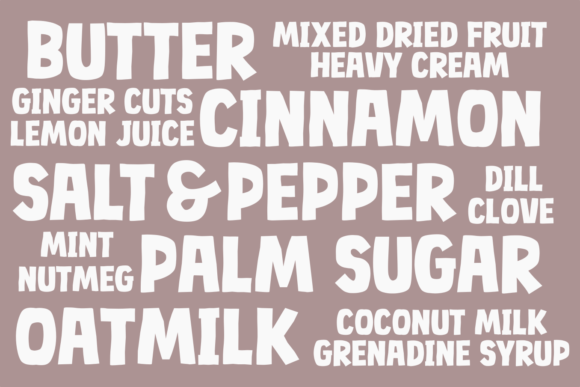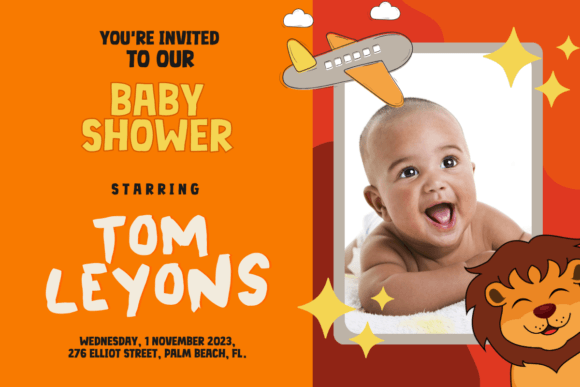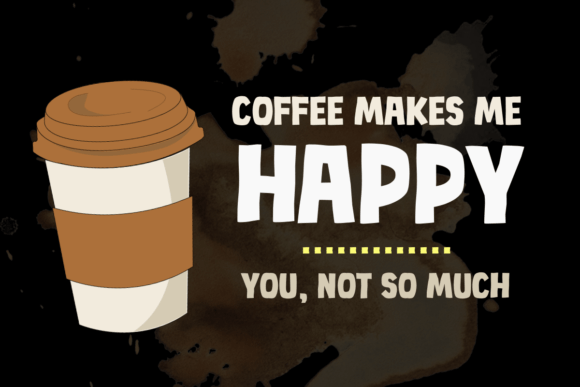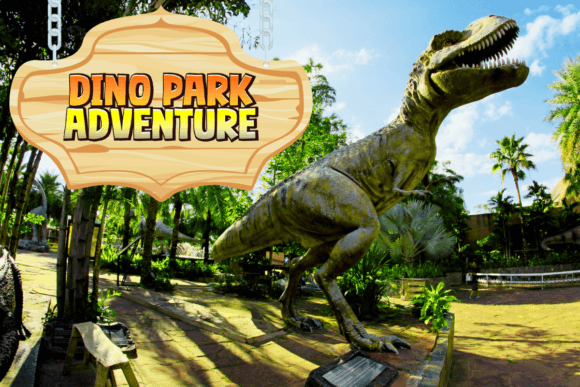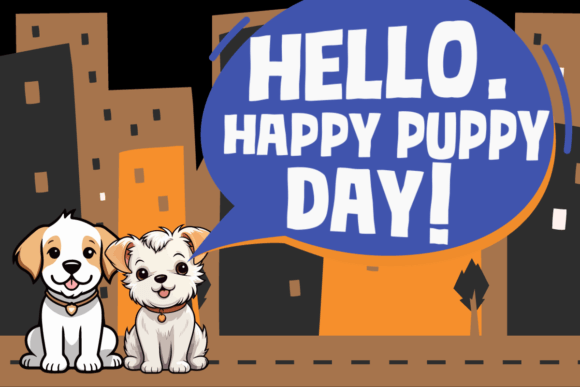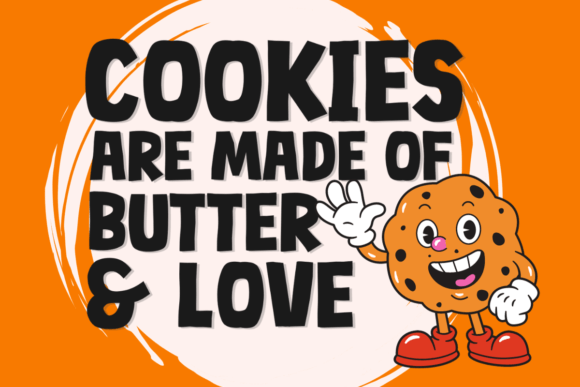
Coffee Butter Font: The Perfect Addition to Your Retro-Themed Projects
Are you a designer or crafter looking for a unique and eye-catching font to add to your retro-themed projects? Look no further than the Coffee Butter Font! This simple, bold, and quirky display font is perfect for a variety of applications, from banners and social media posts to invitations, cards, and more.
What is Coffee Butter Font?
Coffee Butter Font is a display font that is characterized by its bold and quirky design. The font features a unique blend of simplicity and playfulness, making it perfect for adding a touch of personality to your projects. The font’s design is reminiscent of retro-themed decor, with a dash of modern flair.
Key Features of Coffee Butter Font
- Simple and Bold Design: The Coffee Butter Font features a simple yet bold design that is sure to grab attention.
- Quirky and Playful: The font’s quirky and playful design makes it perfect for adding a touch of personality to your projects.
- Retro-Themed: The font’s retro-themed design makes it perfect for use in vintage-inspired projects.
- Versatile: The Coffee Butter Font can be used in a variety of applications, from banners and social media posts to invitations, cards, and more.
Uses for Coffee Butter Font
The Coffee Butter Font is a versatile font that can be used in a variety of applications. Here are a few ideas to get you started:
- Retro-Themed Banners: Use the Coffee Butter Font to create eye-catching banners for your retro-themed parties or events.
- Social Media Posts: Add a touch of personality to your social media posts with the Coffee Butter Font.
- Invitations and Cards: Use the font to create unique and eye-catching invitations and cards for special occasions.
- Crafting Projects: The Coffee Butter Font is perfect for use in a variety of crafting projects, from scrapbooking to DIY decor.
Why Choose Coffee Butter Font?
There are many fonts to choose from, but the Coffee Butter Font stands out from the rest. Here are a few reasons why:
- Unique Design: The Coffee Butter Font features a unique design that is sure to grab attention.
- Easy to Read: Despite its bold and quirky design, the font is easy to read, even in large and small sizes.
- Versatile: The font can be used in a variety of applications, making it a great addition to any designer’s or crafter’s toolkit.
Tips for Using Coffee Butter Font
Here are a few tips for using the Coffee Butter Font in your projects:
- Use it as a Statement Font: The Coffee Butter Font is perfect for use as a statement font in your projects. Use it to draw attention to important information or to add a touch of personality to your design.
- Pair it with Other Fonts: The Coffee Butter Font pairs well with a variety of other fonts. Try pairing it with a simple sans-serif font for a bold and modern look.
- Experiment with Colors: The Coffee Butter Font looks great in a variety of colors. Experiment with different colors to find the perfect look for your project.
The Coffee Butter Font is a unique and eye-catching font that is perfect for adding a touch of personality to your retro-themed projects. With its bold and quirky design, this font is sure to grab attention and add a dash of modern flair to your designs. Whether you’re a designer or crafter, the Coffee Butter Font is a great addition to your toolkit.